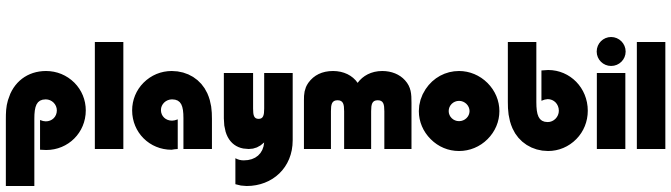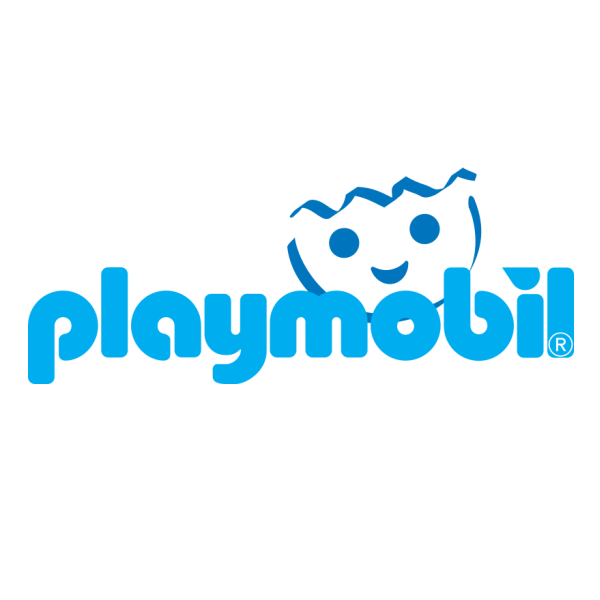
Playmobil Font
EntertainmentPlaymobil is a German toy brand producing plastic figurines and playsets to encourage imaginative play. The brand offers various themes and is a global leader in educational and imaginative toys since its founding in 1974.
The Playmobil logo showcases a blue smiley face with "playmobil" text beneath it. The design is inspired by Blippo and has been modified to create a rounded and friendly appearance.